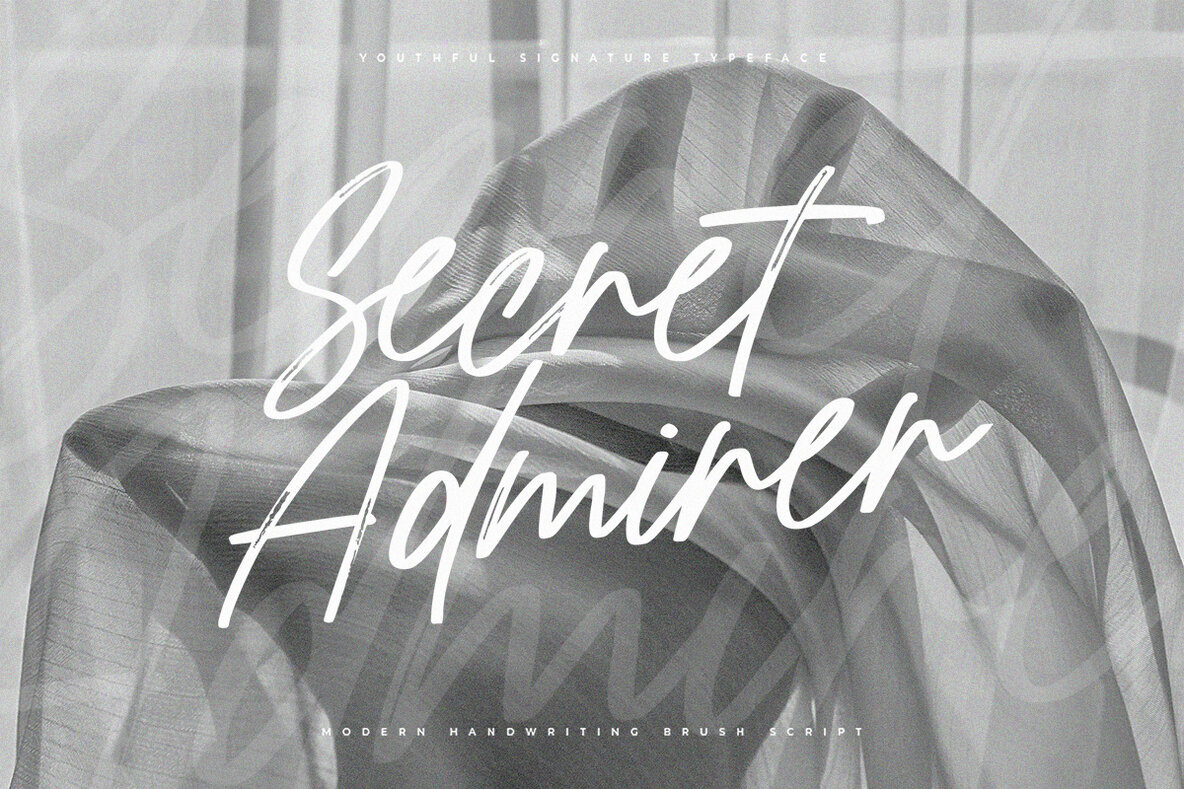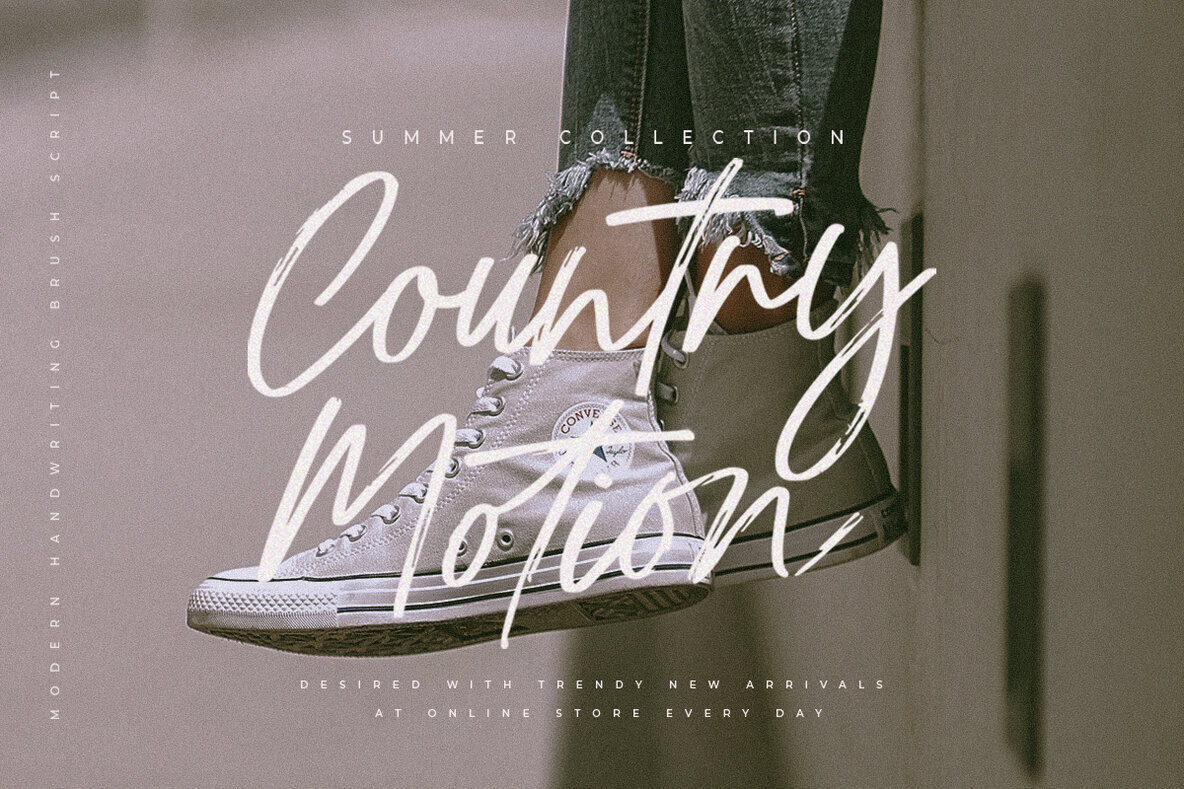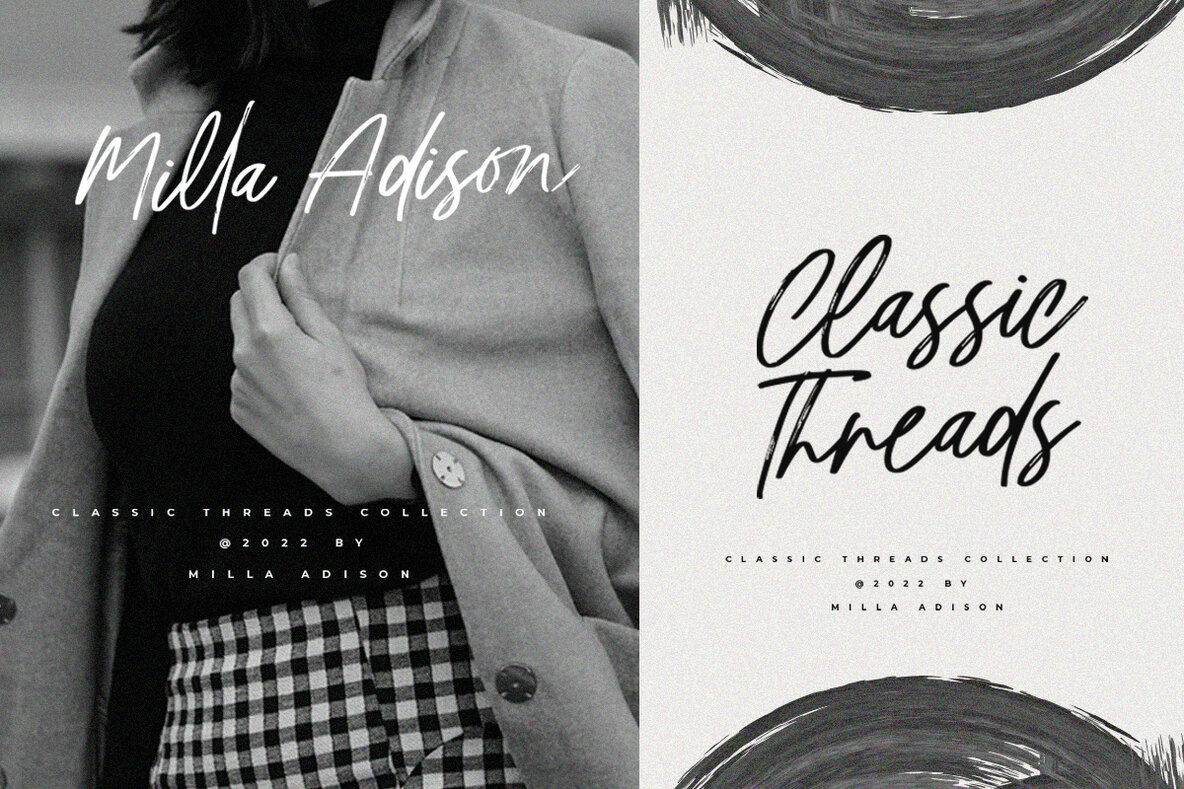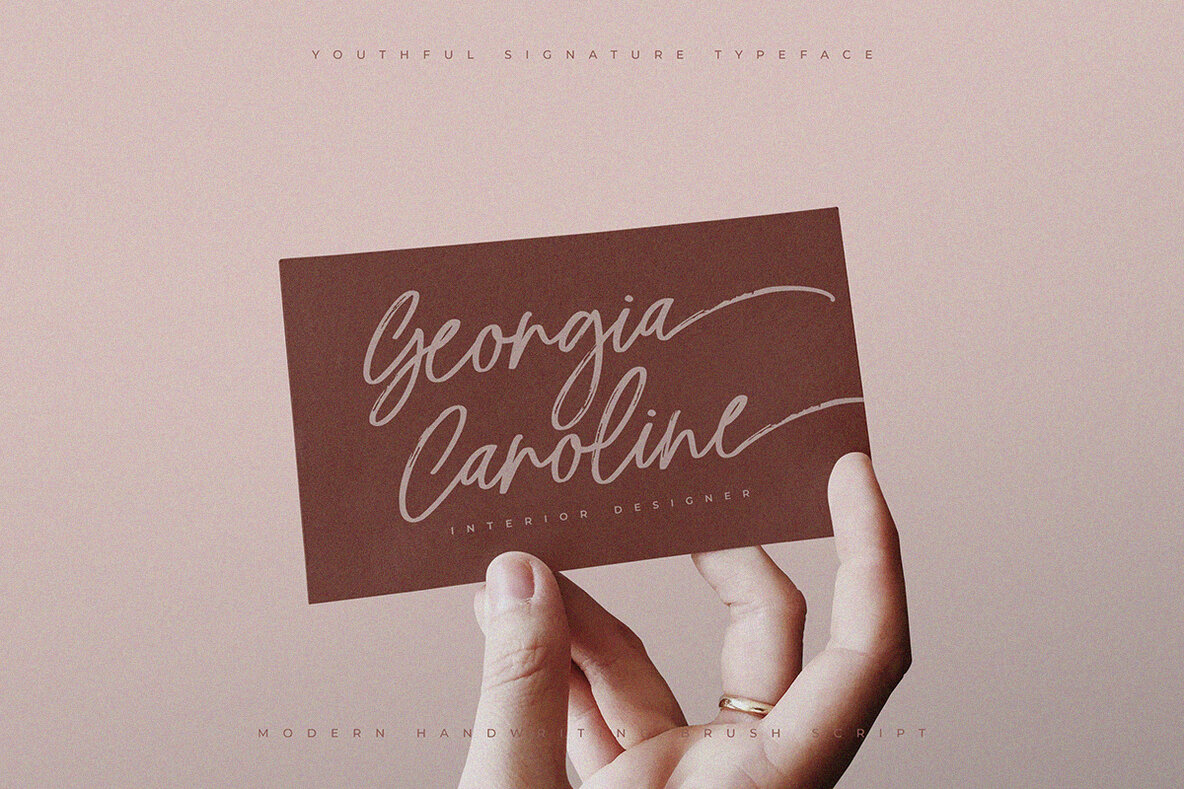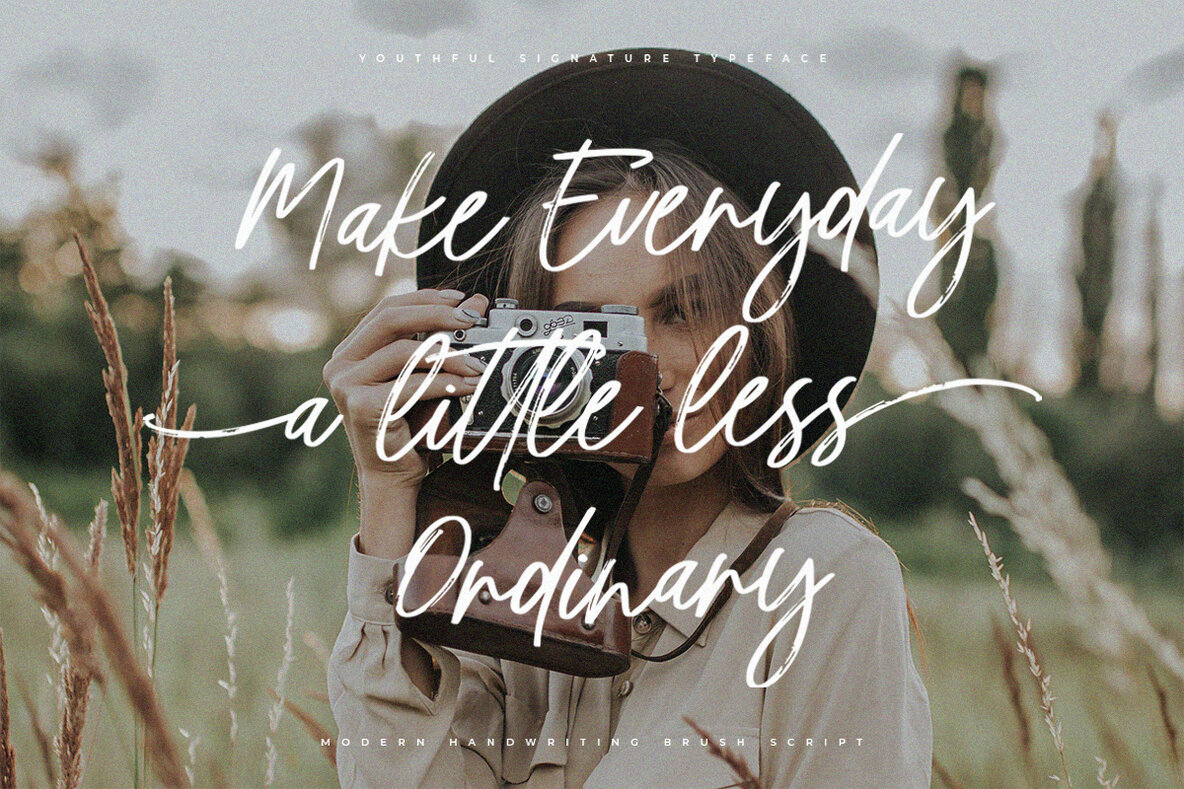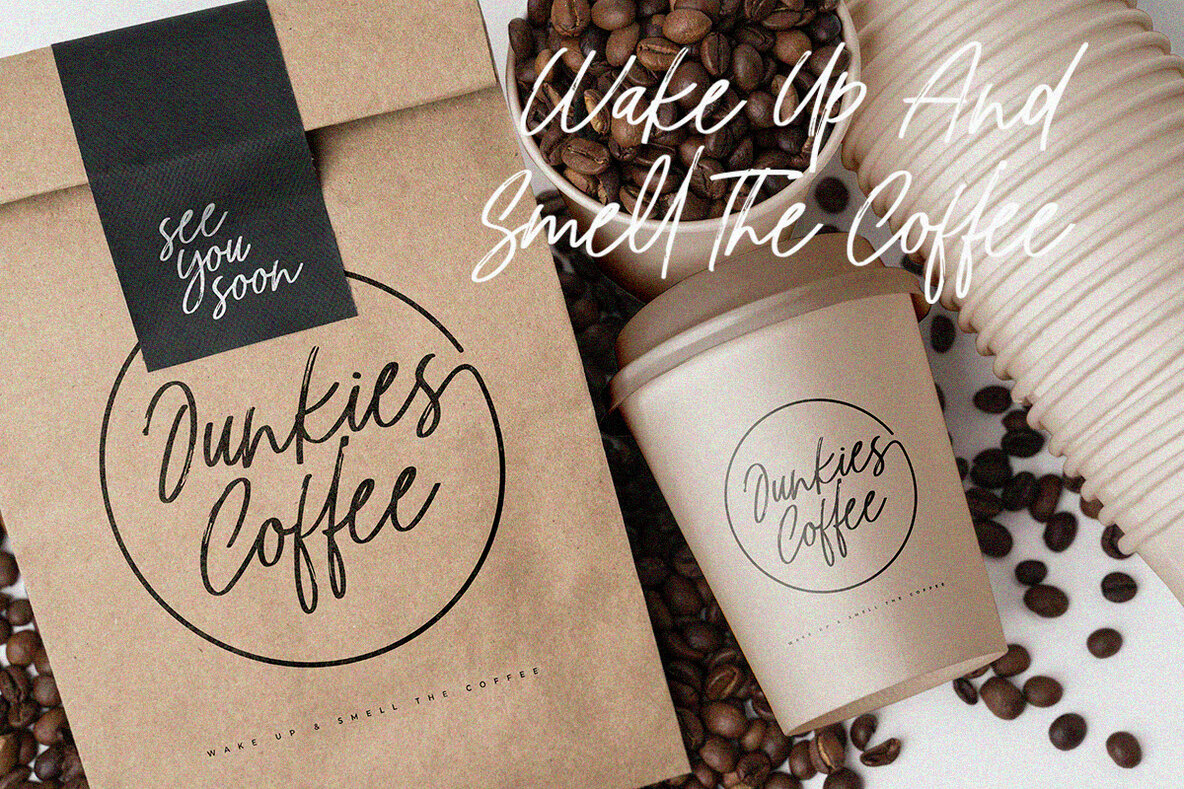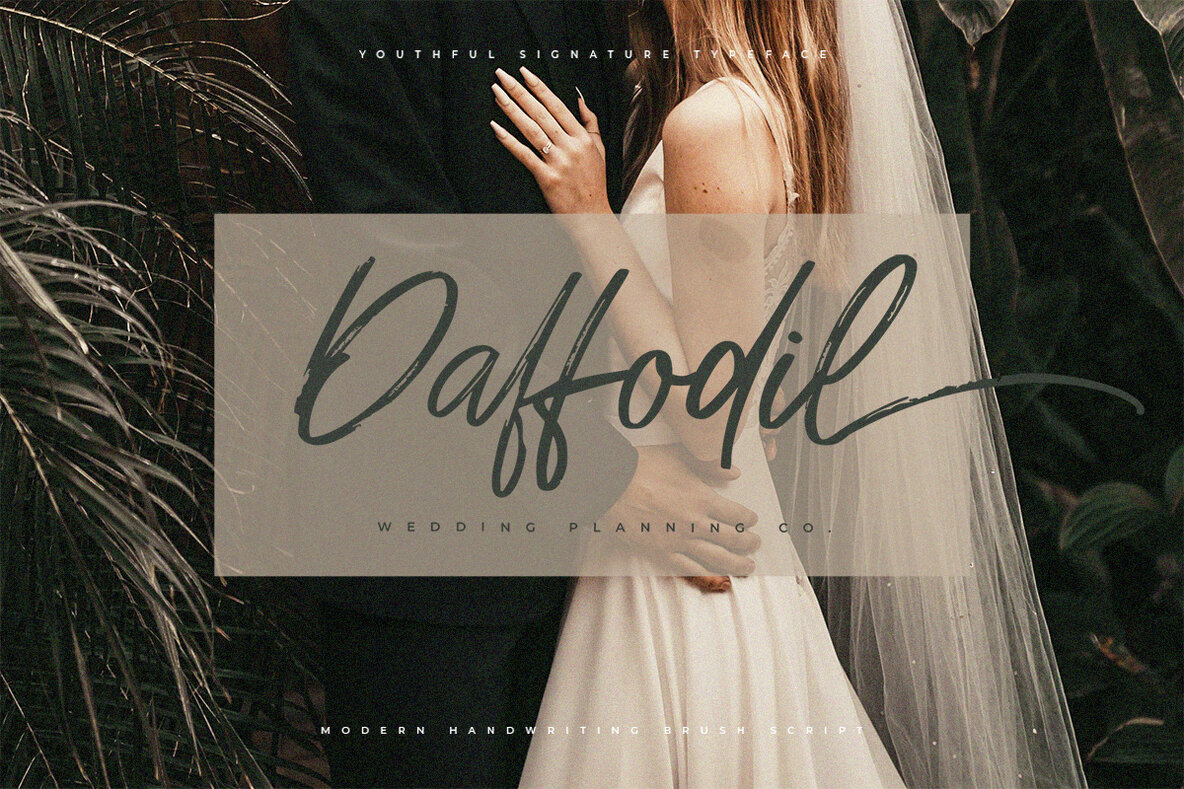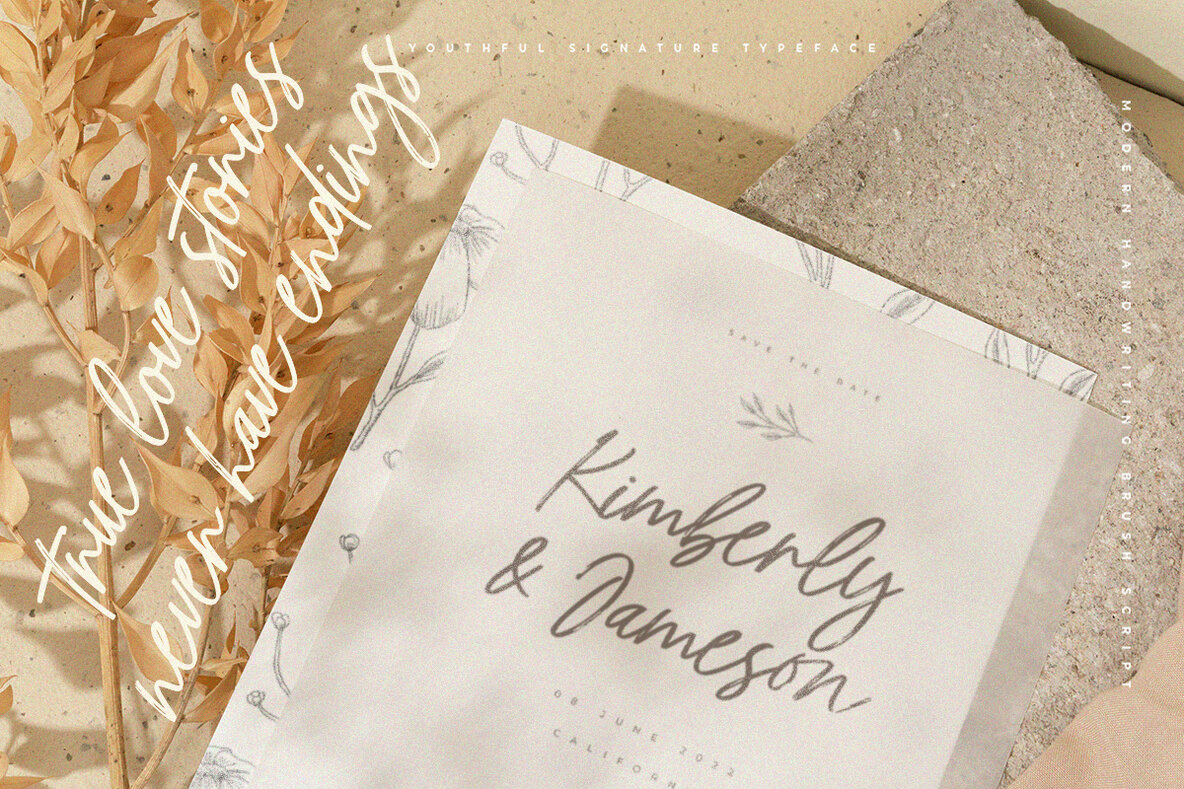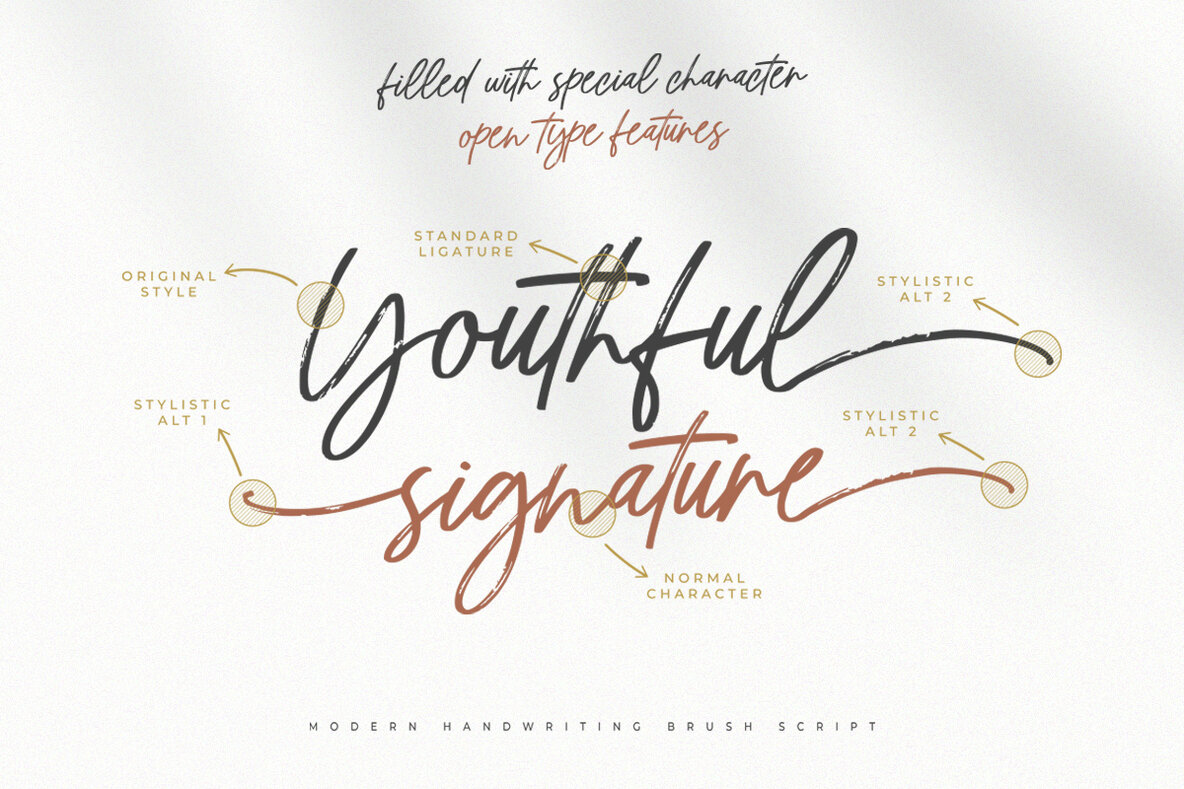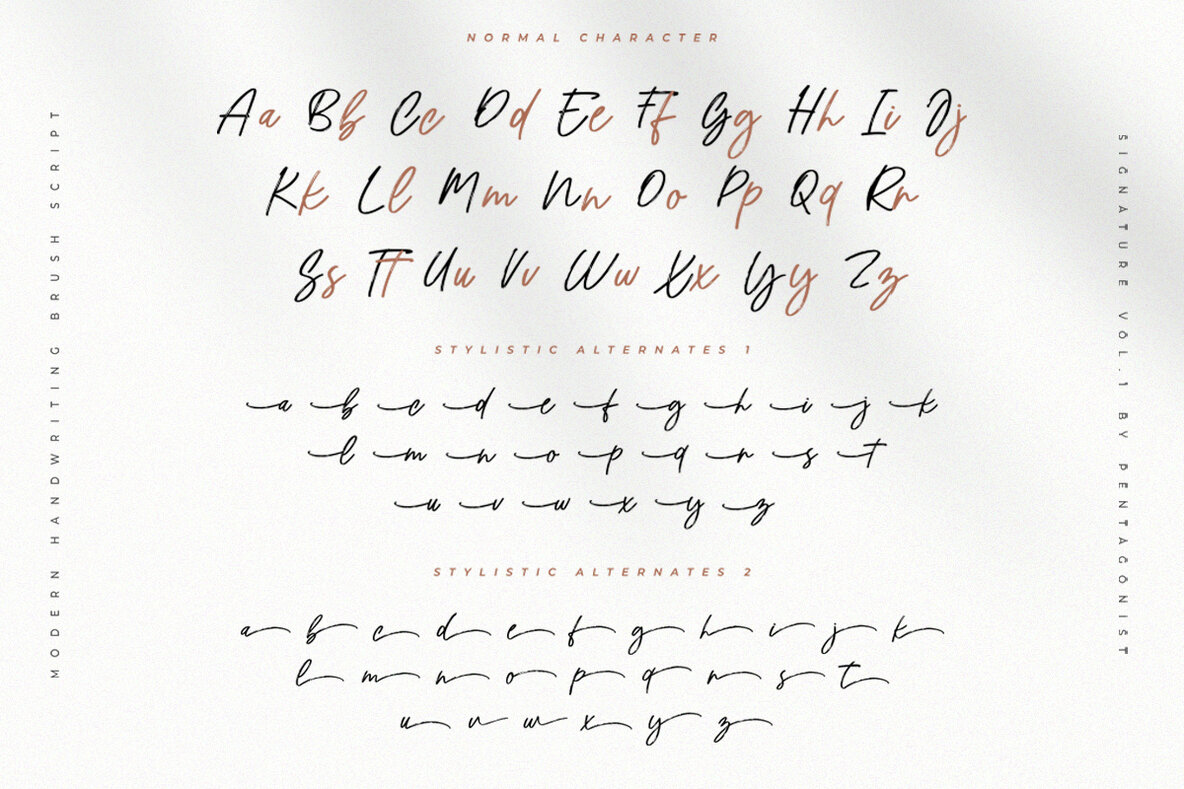
Youthful Font
Youthful
Channel the charm of handwriting with Youthful, a signature script font that resonates with the essence of personal touch. Crafted with an artistic flair, Youthful captures the beauty of cursive writing, infusing your design projects with a sense of authenticity and warmth. Perfect for branding, invitations, or personal stationery, it offers a delightful balance between sophistication and playfulness.Youthful: An Expressive Signature Script Font